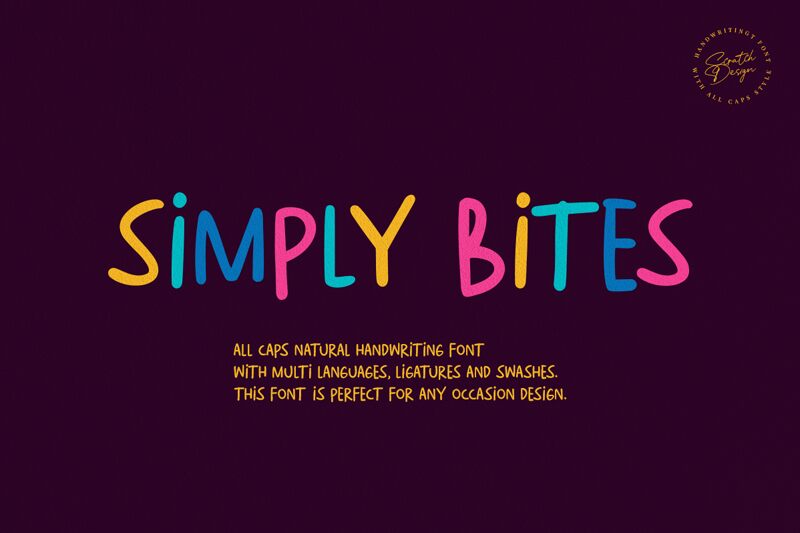
Simply Bites Regular
Simply Bites font, designed by Scratch Design, is a free handwritten font that exudes a casual and approachable feel. With its hand-drawn appearance and modern flair, it introduces a youthful touch and friendly aesthetic to your projects.
Perfect for book covers and quotes, this classic display type will suit plenty of designs like magazine/blog headers, clothing/handbag tags, event/book posters, branding/logos for small businesses or restaurants/cafes, business cards, T-shirt designs etc.